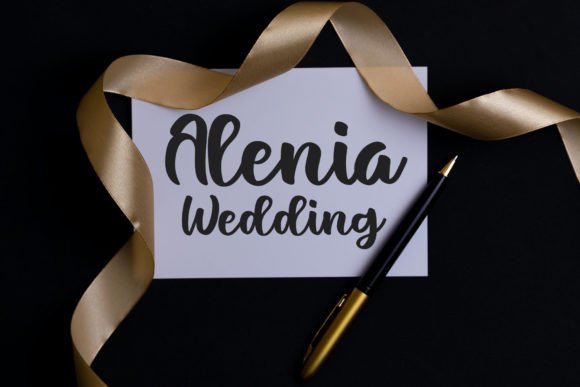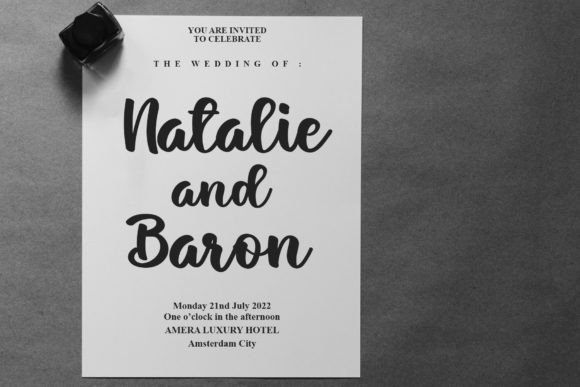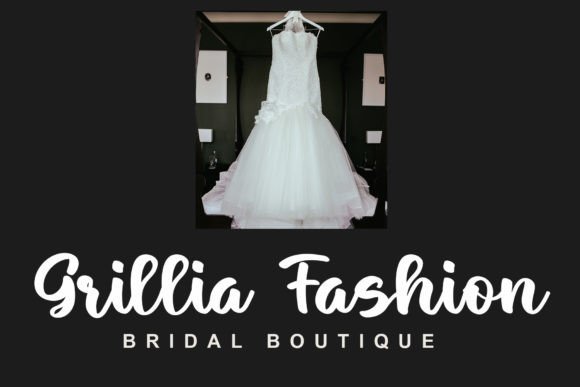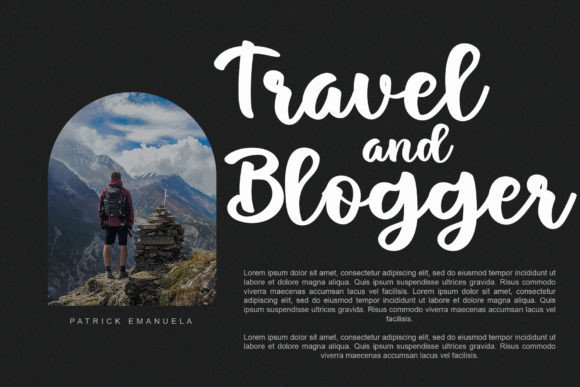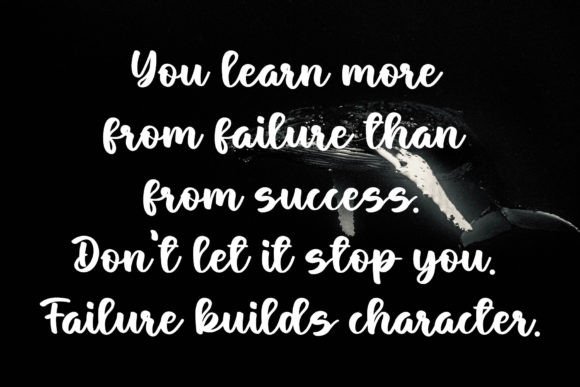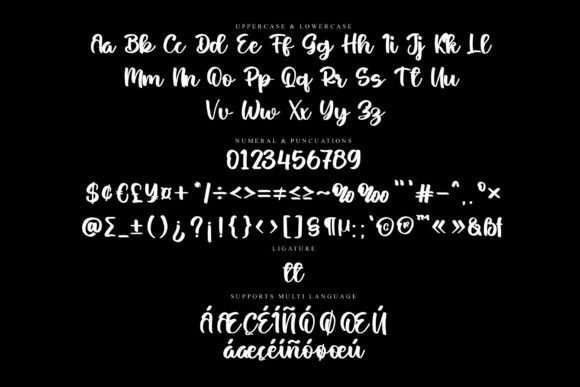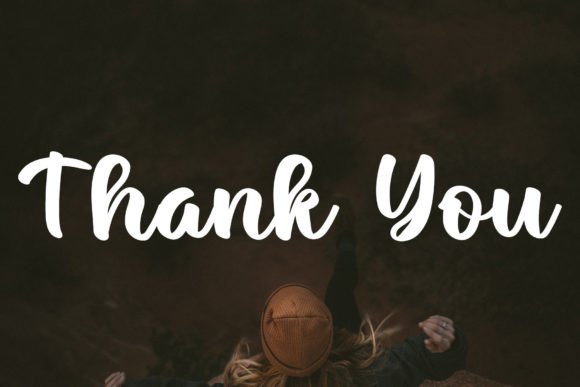
Anchor Font
About Anchor Font
“Anchor is a font that offers gorgeous typography, making it perfect for a wide range of projects. Whether you’re working on logos and branding, invitations, stationery, wedding designs, social media posts, advertisements, product packaging, product designs, labels, photography, watermarks, special events, or any project that requires a touch of handwritten elegance, Anchor is designed to meet your needs.
The beauty of Anchor lies in its versatile and exquisite typographic design. Each letter is crafted with precision, offering a font that adds a touch of sophistication and style to various creative applications. Its versatility makes it suitable for both formal and informal contexts.
Whether you’re creating a brand identity, designing invitations for special events, or adding a personal touch to social media graphics, Anchor stands out as a reliable choice. Its handwriting taste ensures that your text carries a sense of authenticity and charm.
Imagine Anchor enhancing your product packaging, giving it a distinctive and elegant typographic flair. Its adaptability becomes evident as it effortlessly complements different design elements, making your creations visually appealing and memorable.
As you explore the nuances of Anchor, you’ll discover its potential to transform ordinary projects into visually captivating expressions. Let it be the font that brings a touch of sophistication to your creative endeavors, making your designs stand out with a handwritten elegance. With Anchor, every stroke becomes a brushstroke of style, making it an invaluable asset for designers seeking a versatile and exquisite typographic font.”